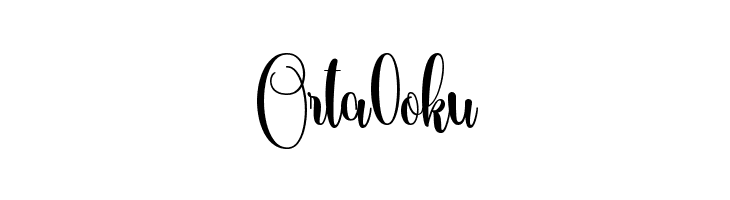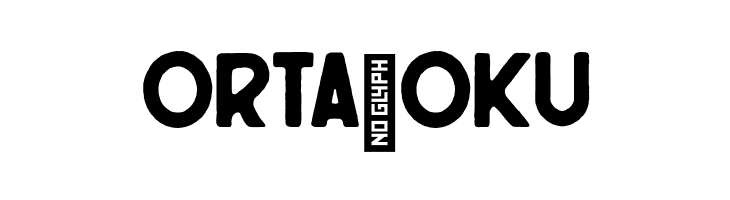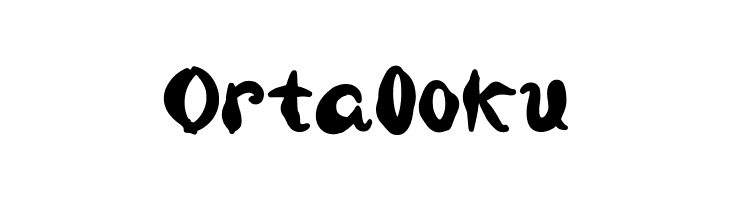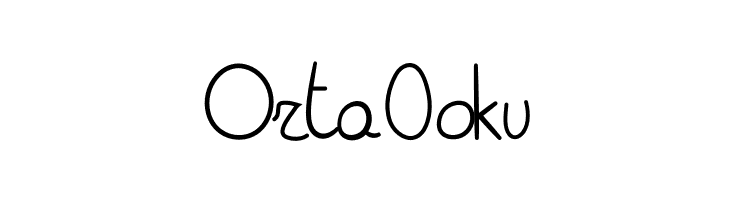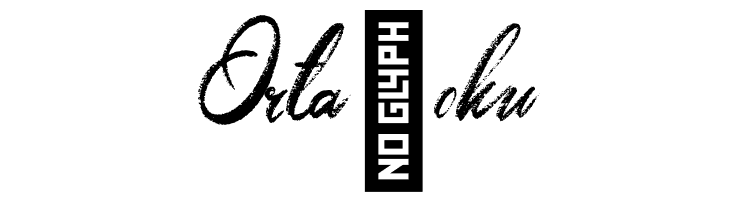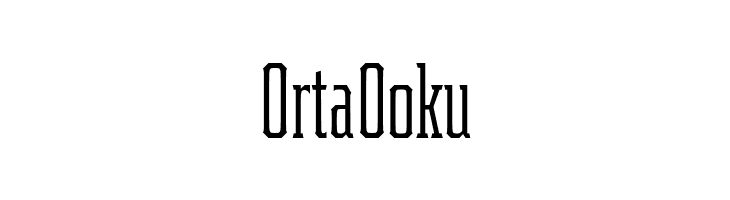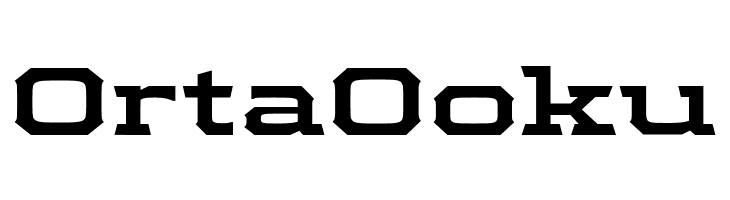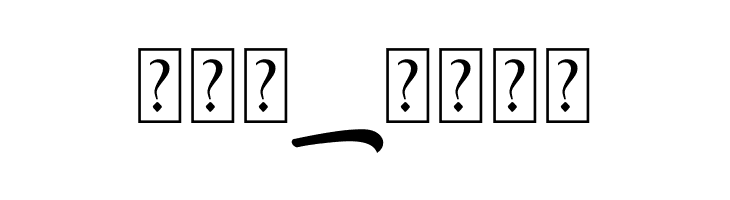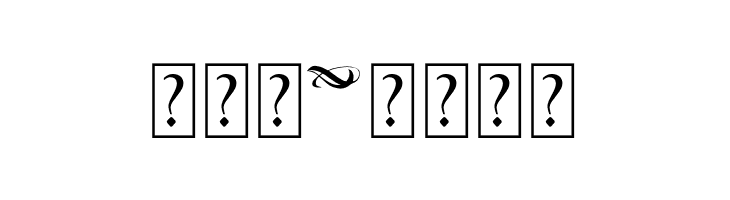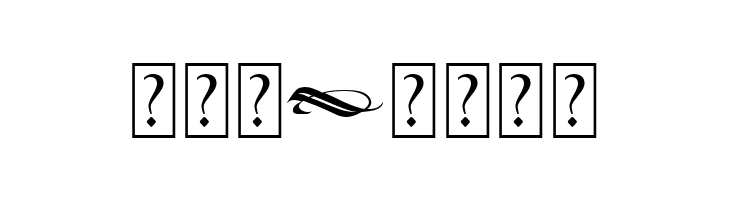
An elegant script font with decorative swirls and loops.
A bold, rounded font with a playful and informal style.
A playful, handcrafted font with bold, irregular strokes and an artistic flair.
A playful and whimsical font with rounded, smooth letterforms and consistent stroke width.
A dynamic script font with bold, hand-brushed strokes and elegant cursive flow.
A tall, narrow, and modern condensed font with uniform stroke width.
A bold, extended slab serif font with a modern yet vintage feel.
A decorative and ornamental typeface with intricate flourishes.